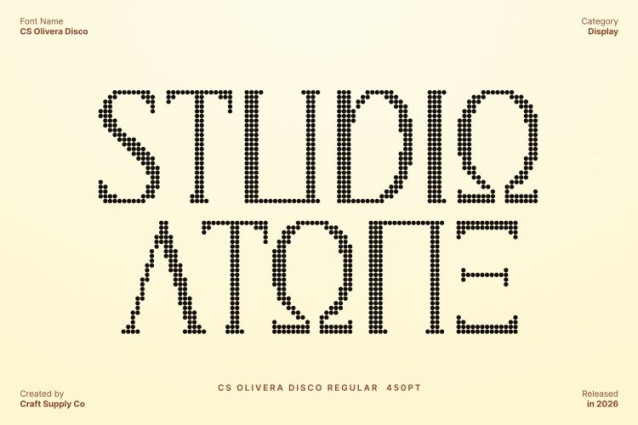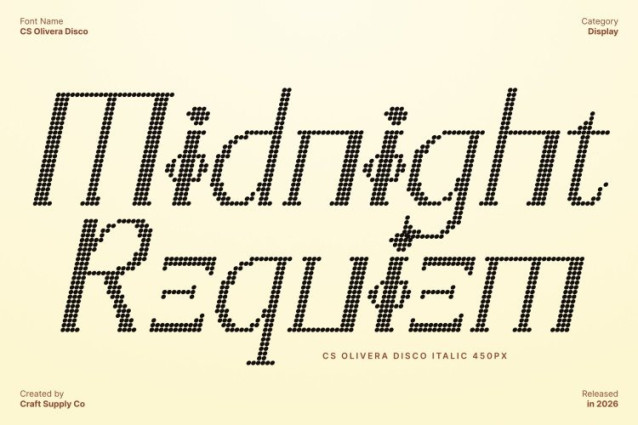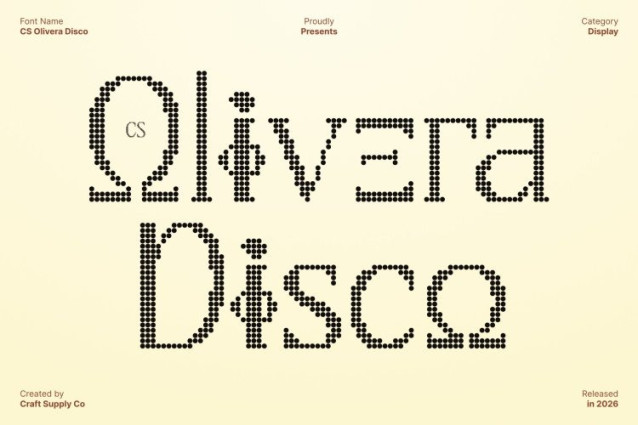
CS Olivera Disco Font
CS Olivera Disco Font is a modern classic serif display font inspired by ancient Greek letterforms, now enhanced with a lively disco-inspired dotted texture. Its elegant serifs preserve the refined grace of historical inscriptions, while the shimmering dotted style introduces a contemporary decorative rhythm. This fusion transforms classical typography into a striking visual experience that feels both timeless and vibrant.
Harmonizing Heritage with Playful Brilliance
The font maintains its sophisticated structure and balanced proportions while the dotted disco effect adds a subtle sparkle across each character. This contrast between historic elegance and festive visual texture creates a unique aesthetic honoring classical design traditions while bringing a fresh, modern energy to the typeface.
Perfect for Sophisticated and Creative Projects
This font shines in projects that combine refinement with bold visual personality. It works beautifully for luxury branding, editorial layouts, book covers, posters, and cultural or artistic projects that seek a distinctive typographic voice. The classical forms provide authority and elegance, while the dotted texture adds creativity and visual intrigue.
Timeless Structure with Contemporary Expression
With its blend of Greek-inspired structure and disco-style detailing, This font offers both versatility and strong visual character. It adapts seamlessly across print and digital media, making designs feel cultured, stylish, and uniquely expressive.